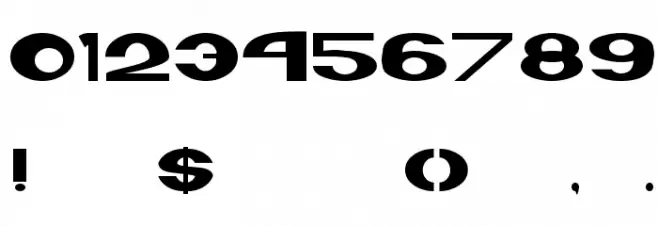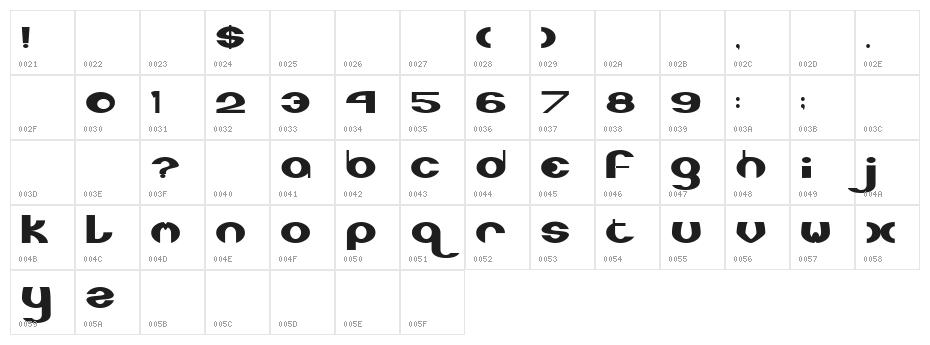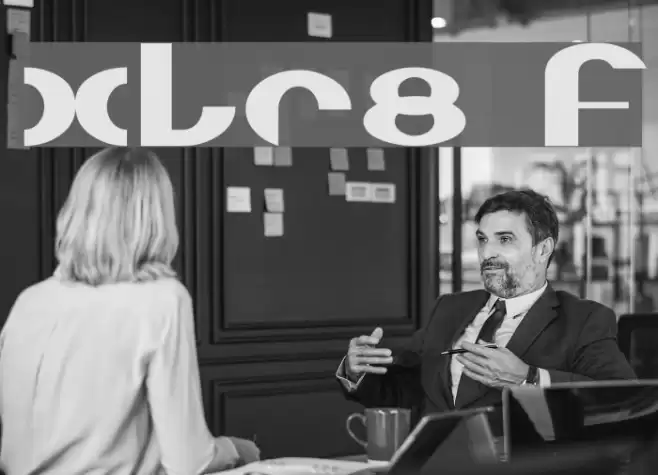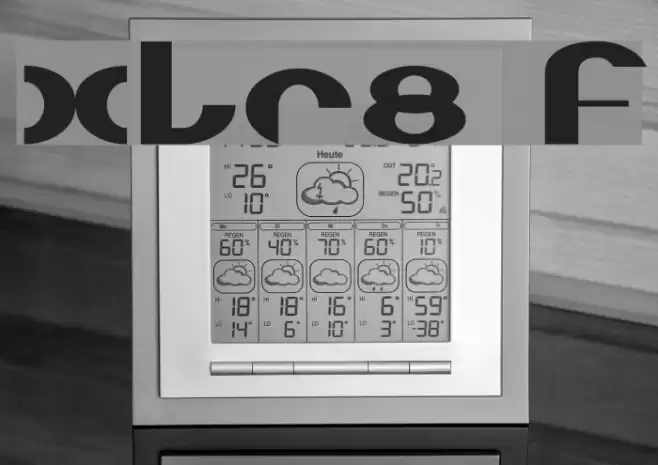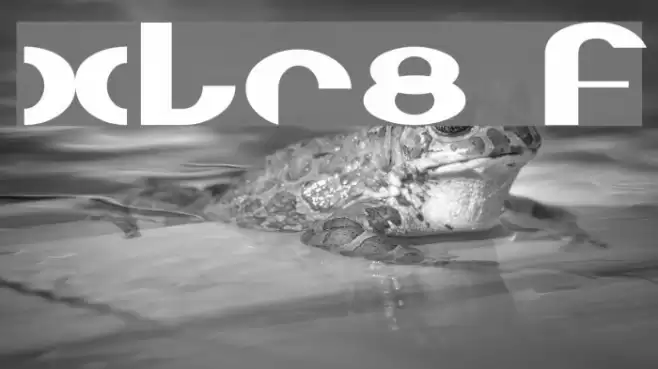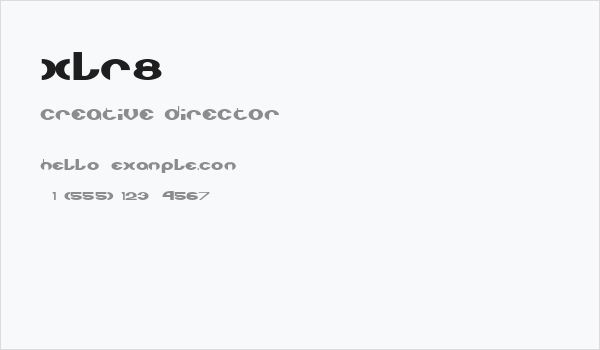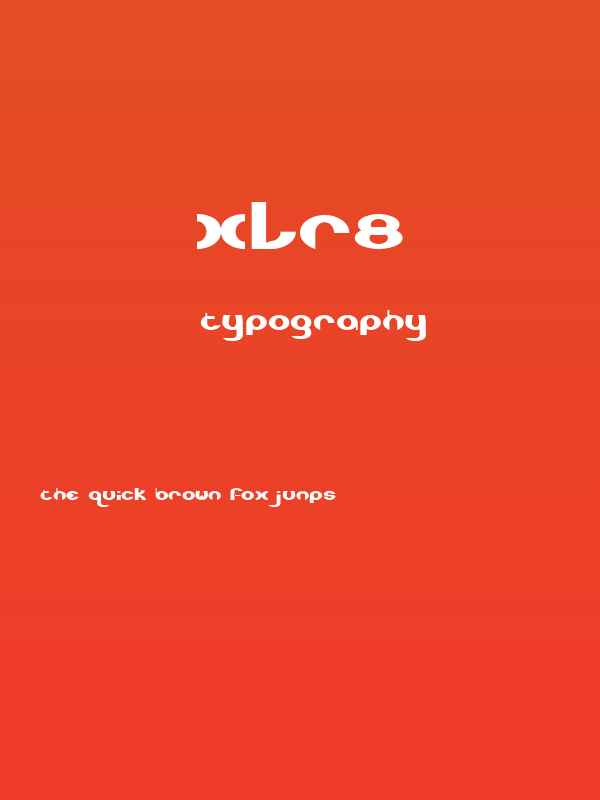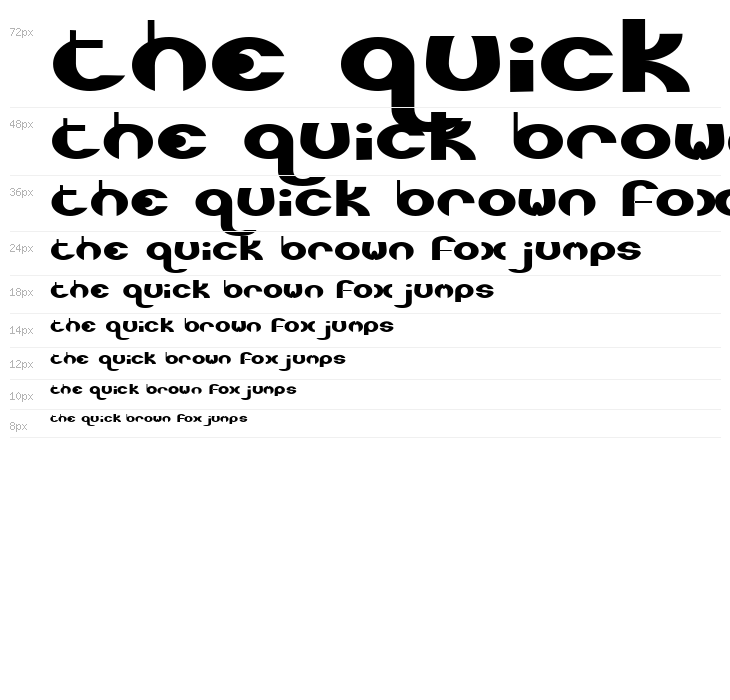
XLR8 Font
XLR8 Description
This font features a bold and modern design with a unique geometric style. The characters are crafted with a combination of circular and straight lines, creating a futuristic and dynamic appearance. The uppercase and lowercase letters maintain a consistent style, with some characters having distinctive cutouts and curves that add to the font's visual interest. The numerals are equally bold and follow the same geometric theme, ensuring a cohesive look across all characters. Special characters are designed to match the overall aesthetic, making this font suitable for a variety of creative applications.
| Proposed Projects | Ideal for branding, logos, headlines, and digital media projects that require a modern and eye-catching typeface. |